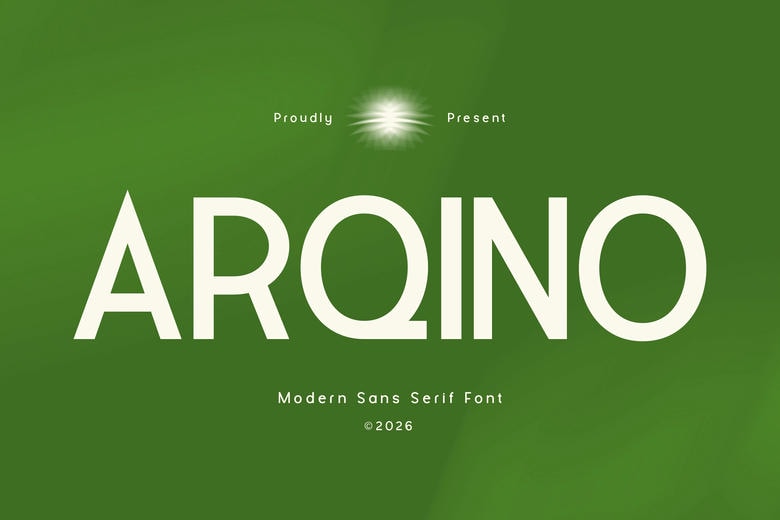
Arqino Font
Arqino is a modern sans-serif font designed with simplicity in mind. Its clean lines and balanced shapes create a timeless style. Each letter looks sleek, professional, and works well in many settings. The minimalist design also makes the letters easy to read.
Arqino Sans Serif Font